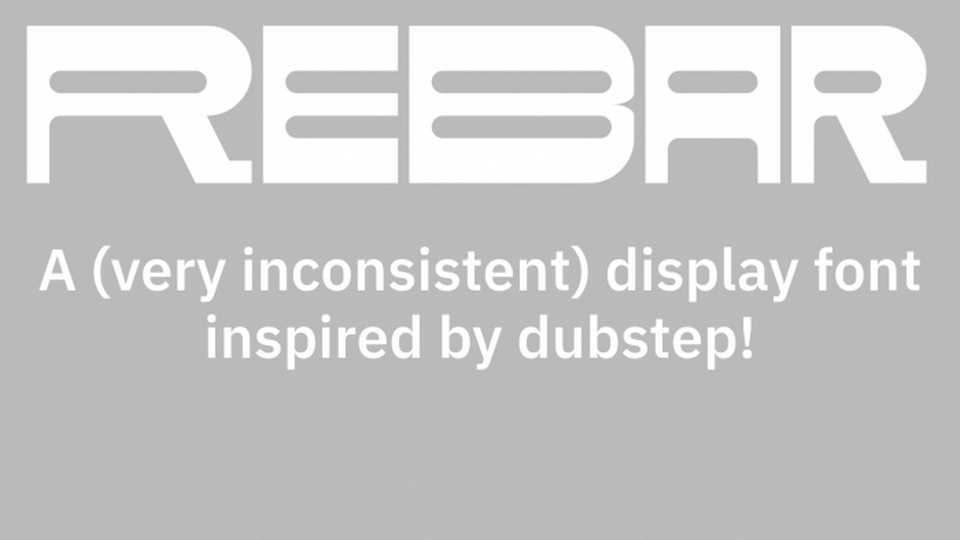
Download Rebar font, a very inconsistent display typeface inspired by dubstep. Rebar font is perfect for event posters, album covers, or any design that aims to capture the bold, futuristic, and edgy spirit of dubstep.